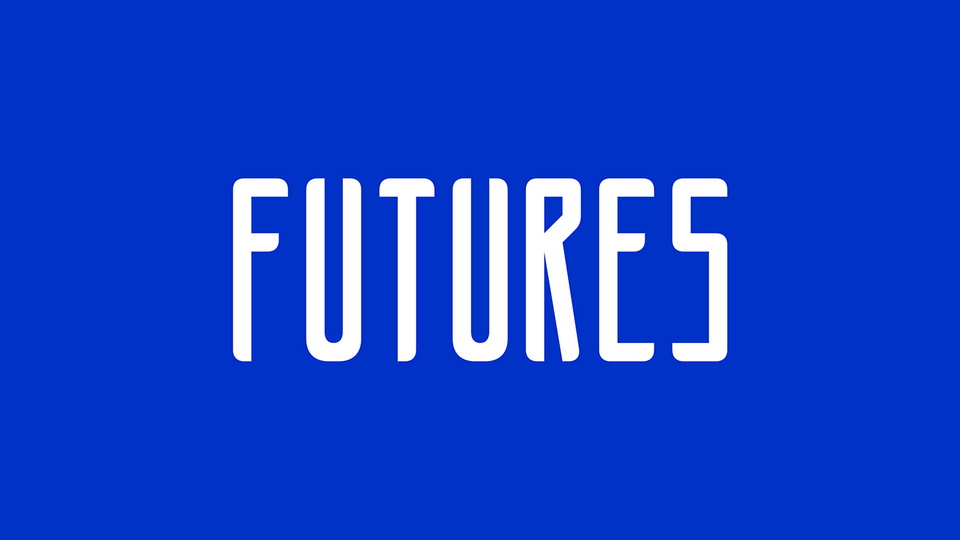
DOwnload Futures font, a beautiful modular tall display typeface. Futures font is great for posters, headings and other editorial works.
Designer: Alexander Sheliketo